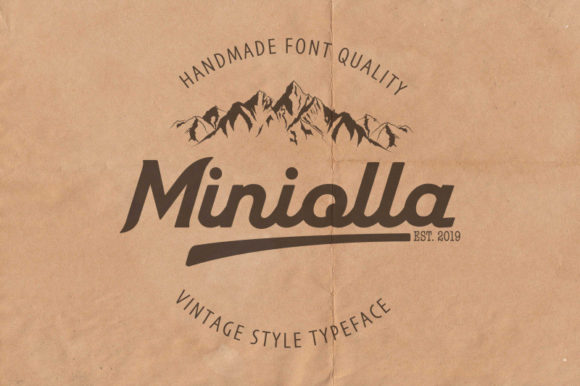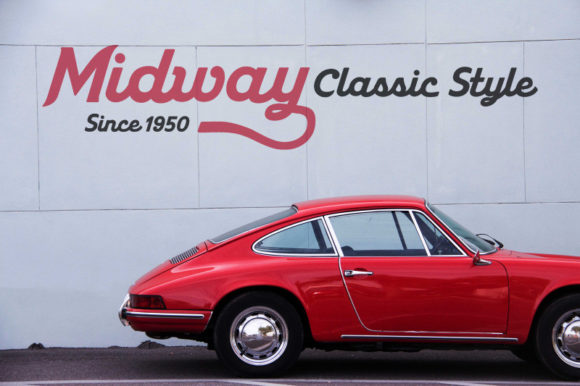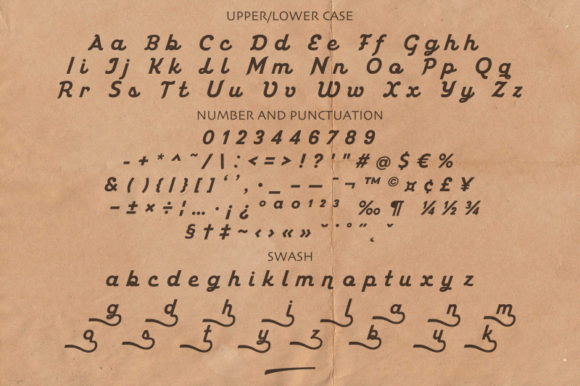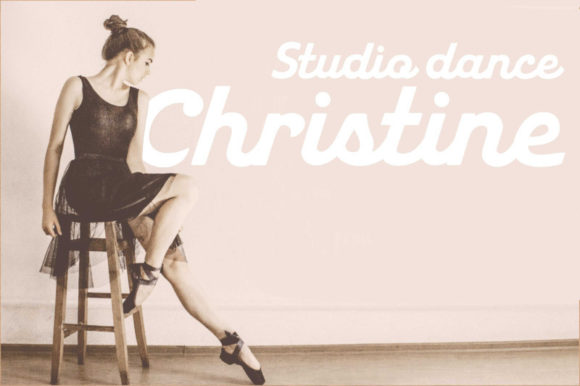
Miniolla Font
About Miniolla Font
Miniolla is a beautiful handwritten font with a casual style and classic impression. It is perfect for anyone who needs a distinctive 70s’ style.
Miniolla is very suitable for branding & logo projects, also suitable for Product Packaging, Article titles or book covers, Stationery, and others.